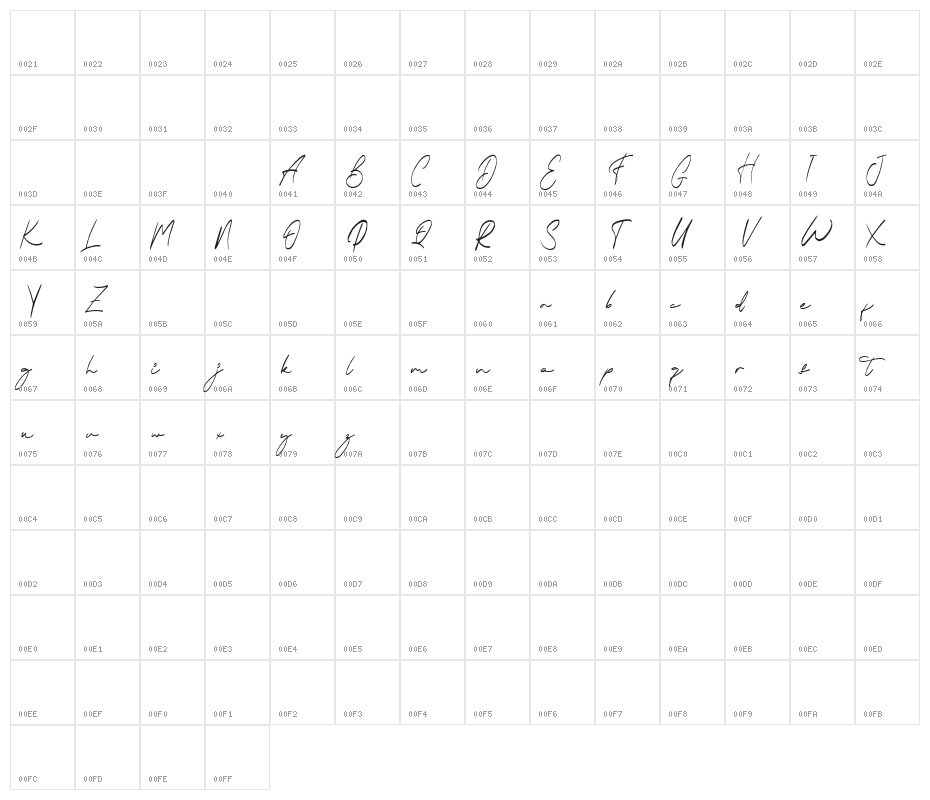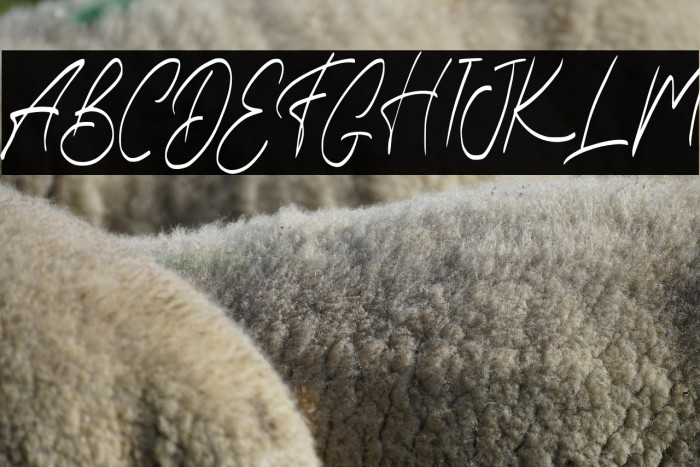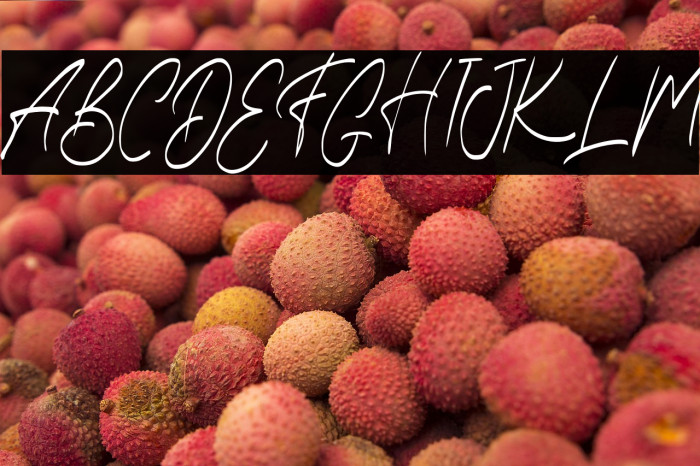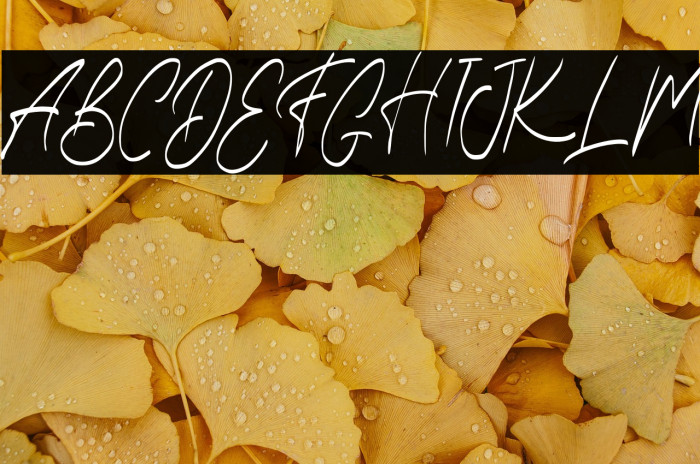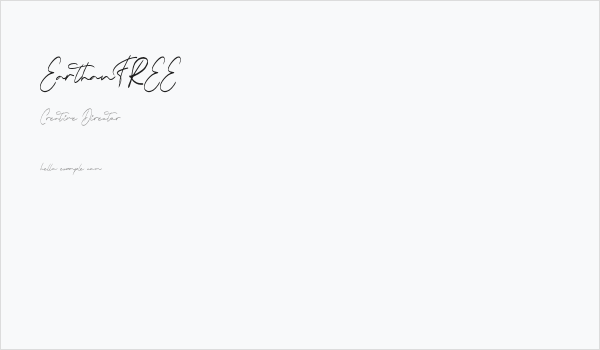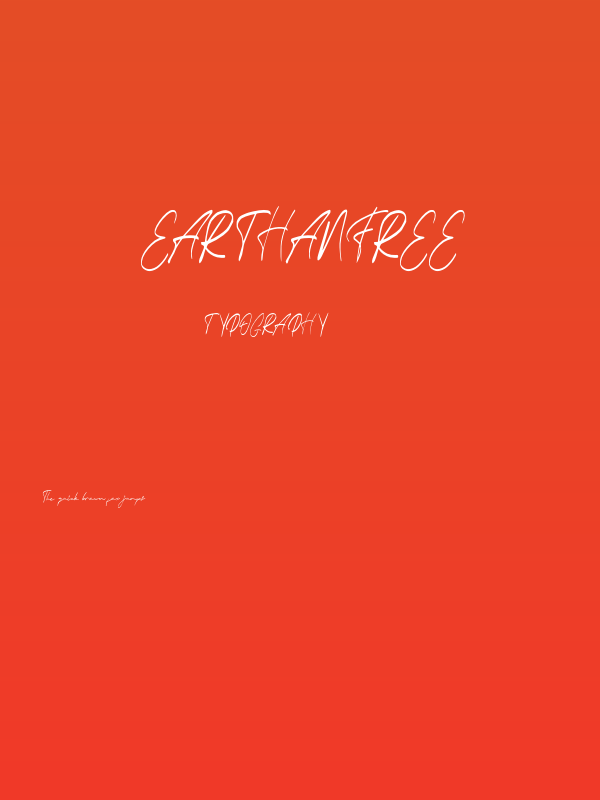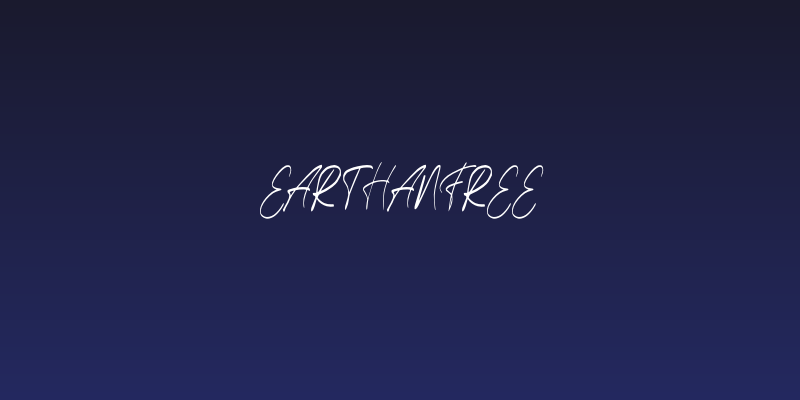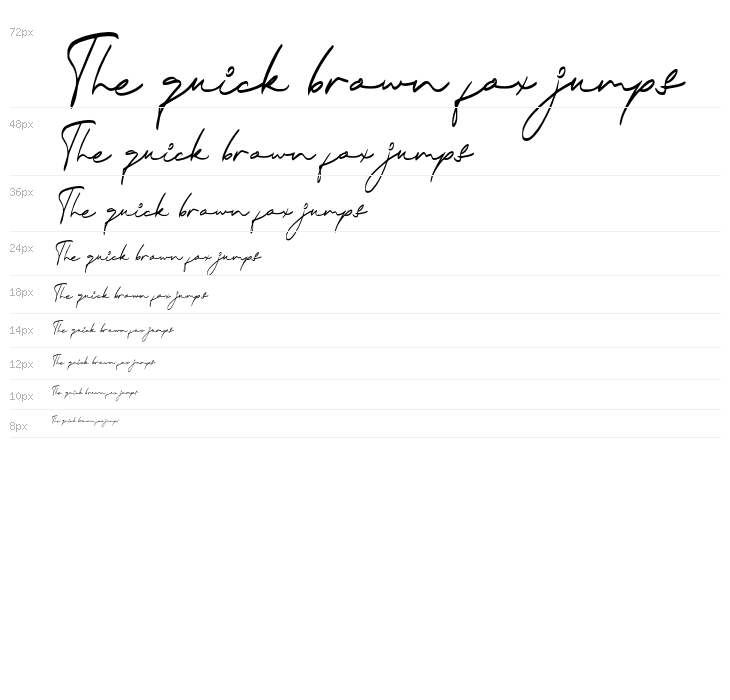
EarthanFREE Font
EarthanFREE Description
This font exhibits a dynamic and flowing script style, characterized by its elegant and fluid strokes. The uppercase letters are bold and expressive, with a slight slant that adds a sense of movement and grace. The lowercase letters maintain a consistent flow, with loops and curves that enhance its handwritten appearance. The numbers and special characters are designed to complement the overall aesthetic, ensuring a cohesive look across all text. This font's unique style makes it suitable for creative and artistic projects, where a touch of elegance and personality is desired.
| Use Case | Logos, Invitations, Artistic projects |
| Proposed Projects | Ideal for wedding invitations, greeting cards, branding, and artistic projects. |